This logo was made by an old typeface used in a typewriter (do not know the name o.b.v). Was hoping if there was also a digital version. Tried whattehfont etc didn’t get the correct font. Can someone shoot me into the right directions?
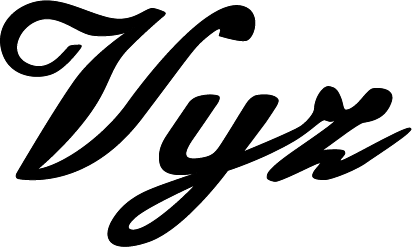
This logo was made by an old typeface used in a typewriter (do not know the name o.b.v). Was hoping if there was also a digital version. Tried whattehfont etc didn’t get the correct font. Can someone shoot me into the right directions?
Try Marceline Regular